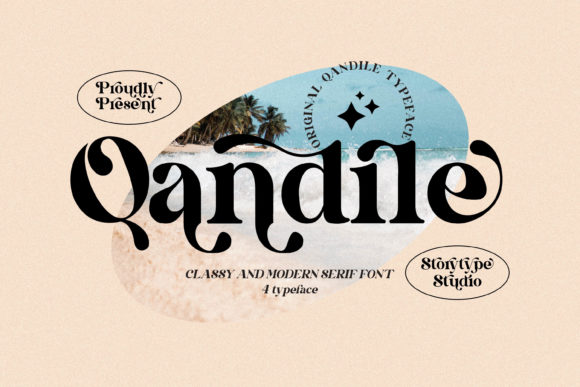
Introducing Qandile Font, the assertive and distinct serif font that will empower your website headings with a captivating presence.
Qandile is not just a font; it's a masterpiece crafted by the renowned Storytype Studio. Each letterform exudes confidence and distinction, designed to elevate your headings beyond the ordinary.
With its PUA encoding, accessing the full spectrum of glyphs and swashes is effortless. Unleash your creativity and let Qandile transform your website into a visual symphony.
Whether you're a seasoned designer or a budding enthusiast, Qandile is your perfect companion. Add it to your typography arsenal and witness the remarkable transformation it brings to your designs.
Embrace the power of Qandile and let your website headings radiate with an assertive elegance that captivates every visitor.